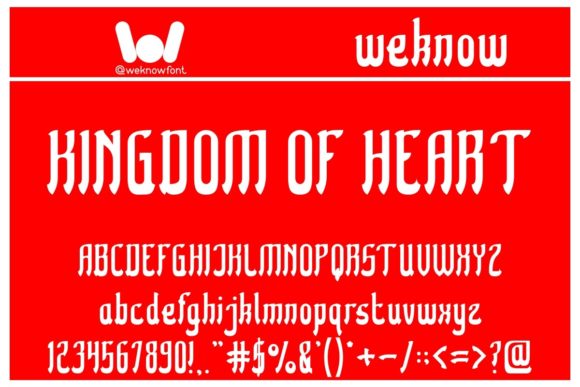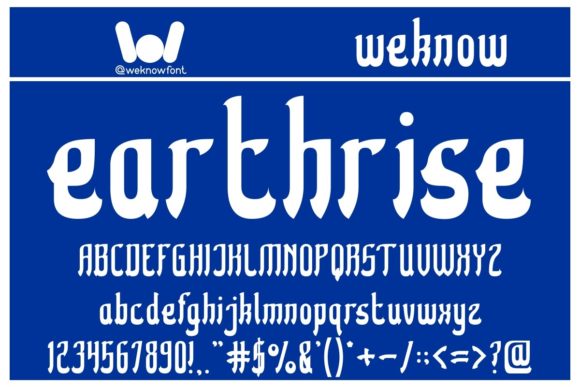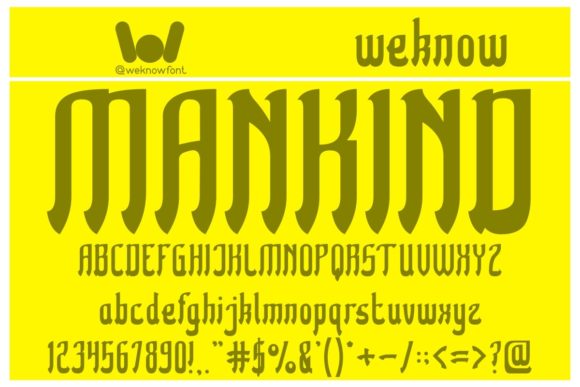
Introduction to Kingdom of Heart Font
Kingdom of the heart is an incredibly cool and unique display font.
Kingdom of the heart is an incredibly cool and unique display font. It has a modern yet whimsical style and it will undoubtedly immerse your designs into a magical world
Why Choose Kingdom of Heart Font?
Kingdom of Heart Font offers exceptional quality and versatility, making it a valuable addition to your design toolkit. Whether you’re creating for personal projects or commercial use, Kingdom of Heart Font delivers professional results.